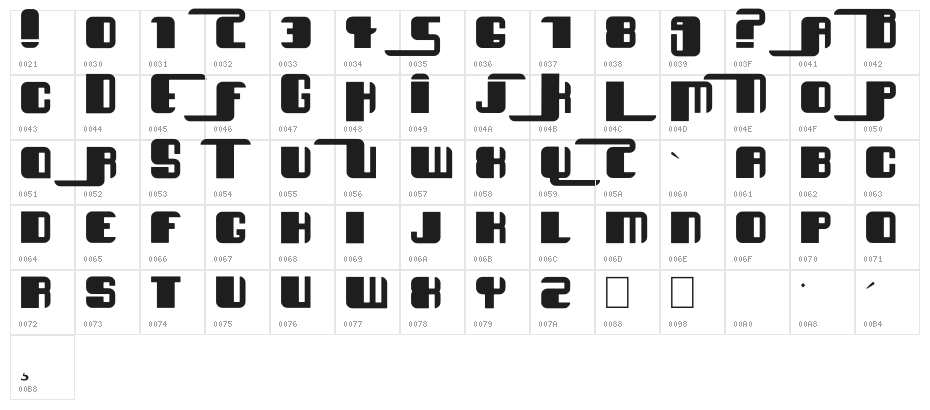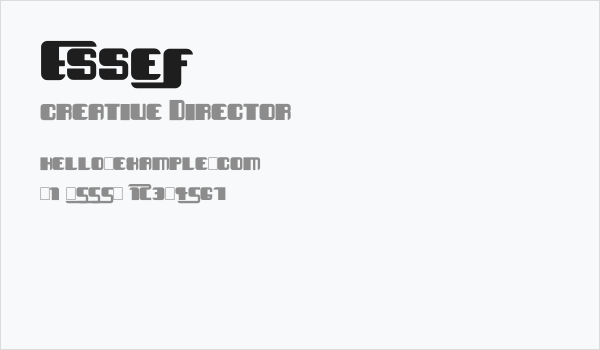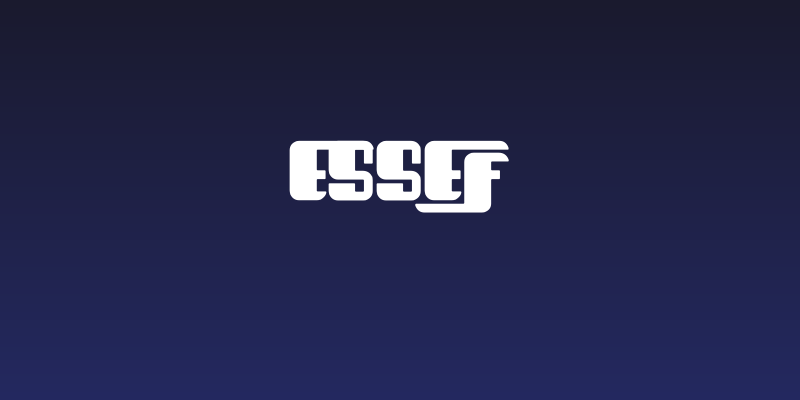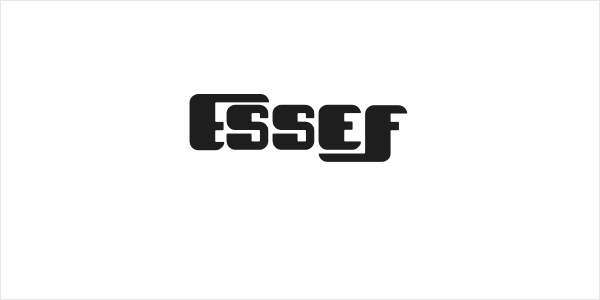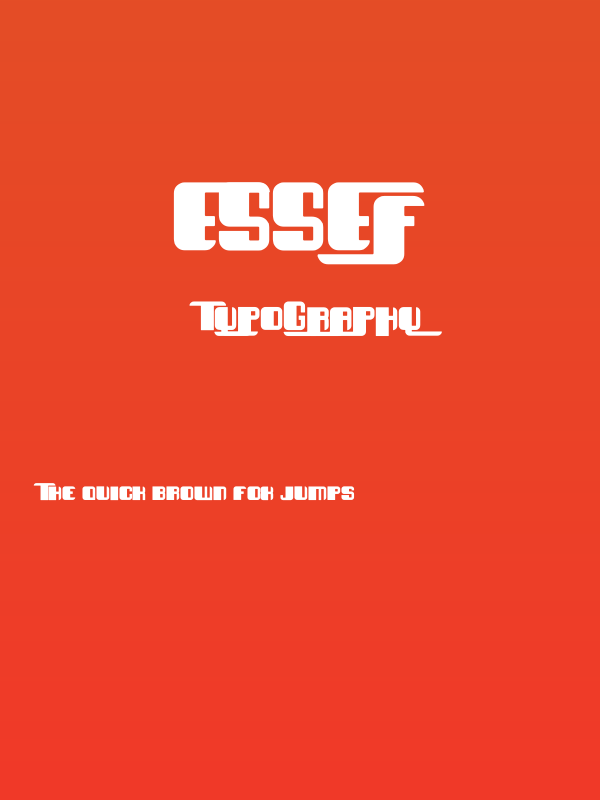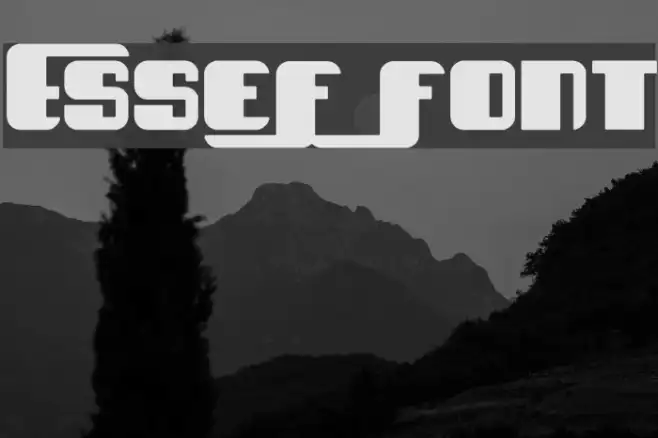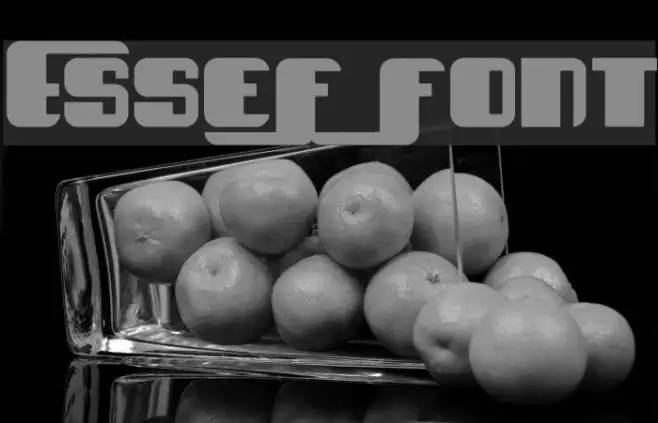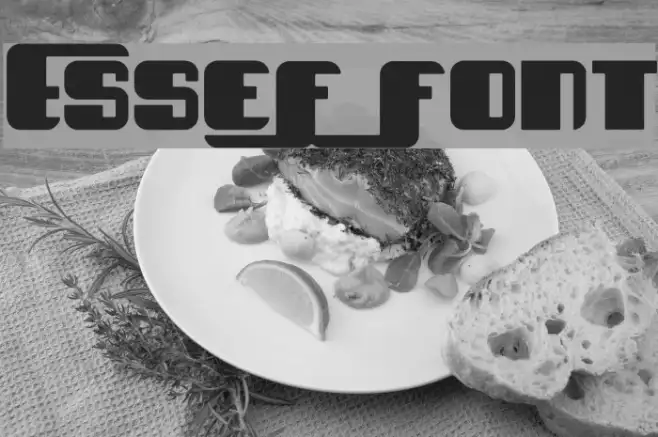
EsseF Font
EsseF Description
This font features a bold and striking design with a modern, futuristic aesthetic. The characters are constructed with thick, block-like shapes that create a sense of strength and stability. The uppercase and lowercase letters maintain a consistent width, contributing to a uniform appearance. The numbers and special characters follow the same bold style, ensuring cohesion across all elements. The font's unique design includes subtle cutouts and geometric elements that add visual interest without compromising readability. This typeface is ideal for projects that require a strong visual impact.
| Proposed Projects | Ideal for branding, posters, headlines, and any design requiring a bold statement. |